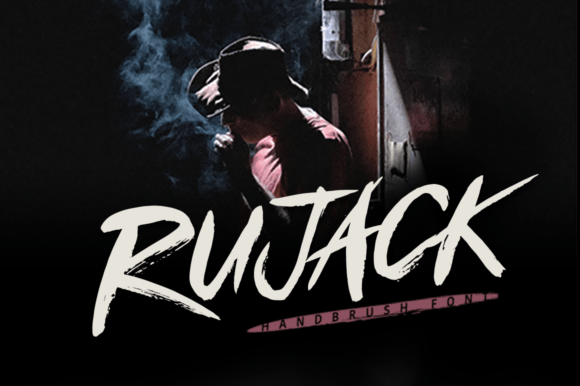
Step into the world of elegance and creativity with Rujack font — a script typeface that oozes sophistication and artistry. Inspired by the fluid strokes of calligraphy, Rujack exudes a timeless charm that adds a touch of personal grace to any design.
Creatively crafted by Sawarna Studio, Rujack captures the essence of natural handwriting. Each letter dances across the page, mirroring the delicate flow of a brush, creating a sense of seamless movement. The subtly varying line weight adds depth and dimension, enhancing the overall visual appeal of your designs.
With Rujack font, your words take on a life of their own. It's a perfect choice for wedding invitations, where its elegant swirls and curves add a touch of romance and whimsy. Let your words paint a picture of love and commitment as they flow beautifully across the page.
Create book covers that captivate and intrigue. The organic strokes of Rujack font infuse your designs with a sense of authenticity, drawing readers into the world of your stories. Its graceful lines evoke a sense of curiosity, inviting readers to delve deeper into the pages and lose themselves in the narrative.
Embrace the beauty of simplicity with Rujack font. Its casual yet refined aesthetic makes it an ideal choice for social media graphics. Share your thoughts, ideas, and moments in a visually captivating way. The personality of Rujack font adds a touch of uniqueness and charm to your online presence, making your content stand out from the crowd.
With Rujack font, you have endless possibilities to unleash your creativity. Its versatility knows no bounds, allowing you to explore a wide range of design projects with ease. Wedding invitations, book covers, social media graphics — Rujack elevates them all with its effortless charm and timeless appeal.